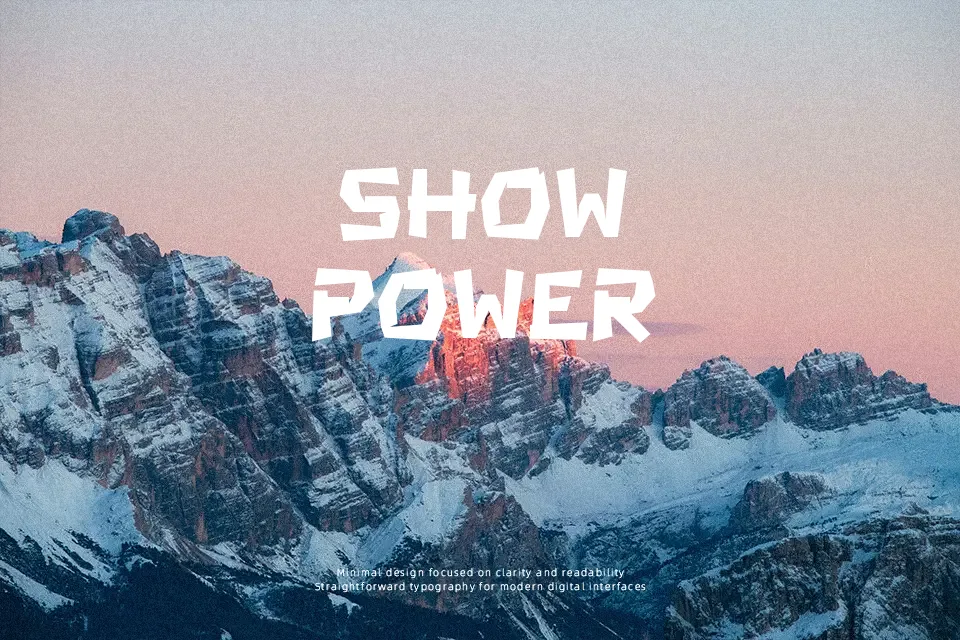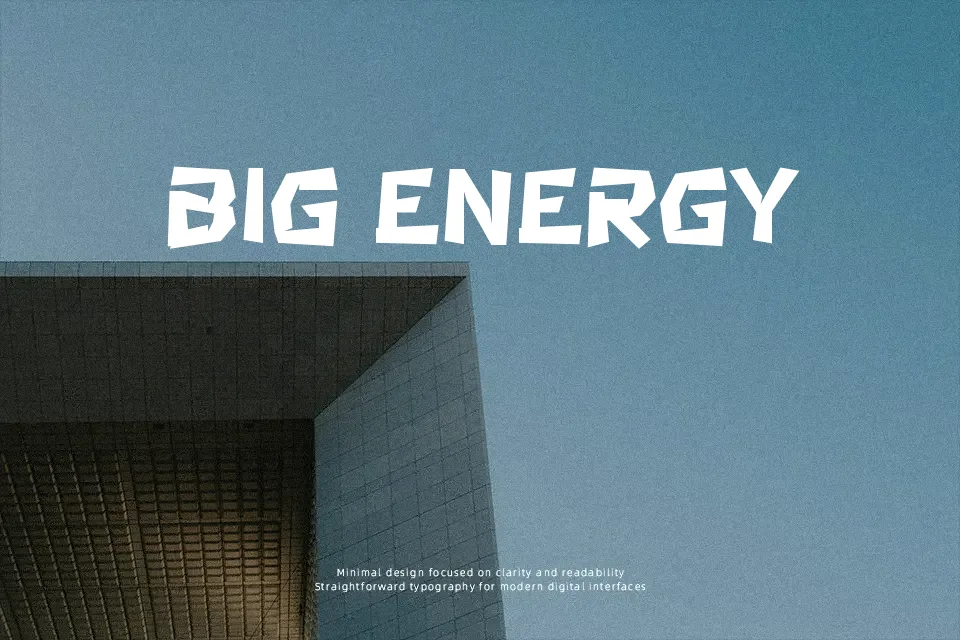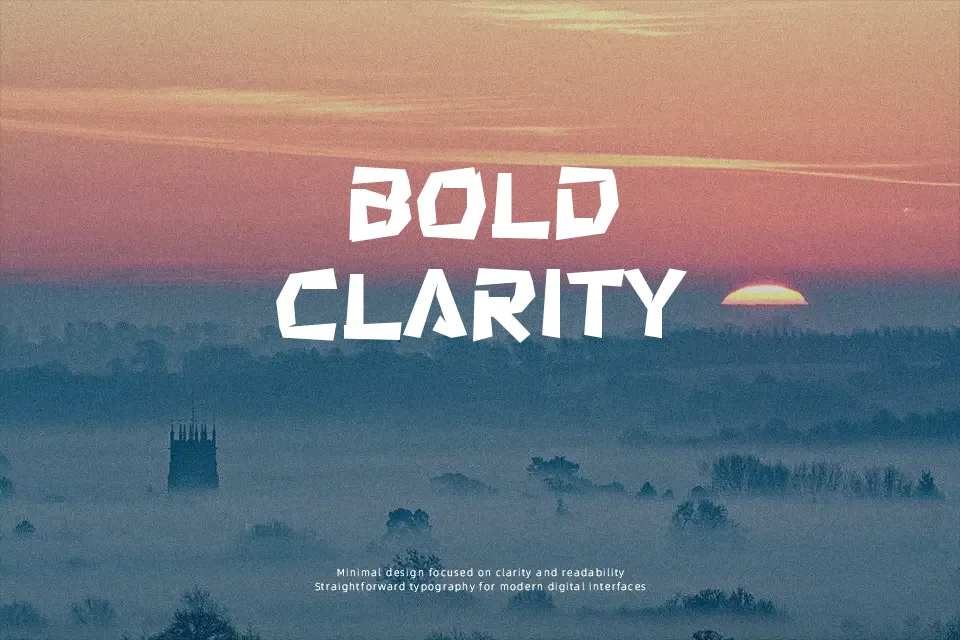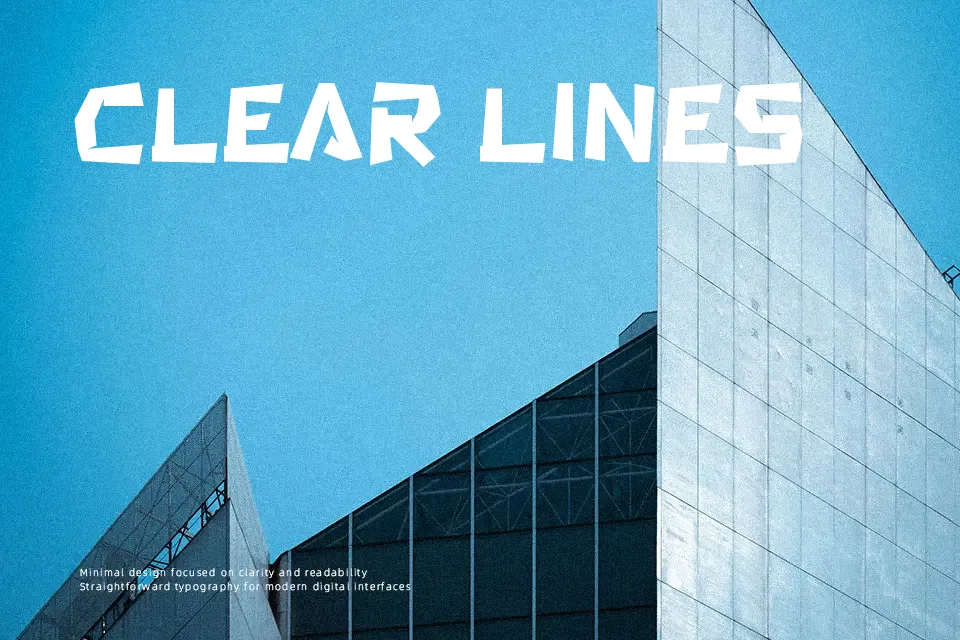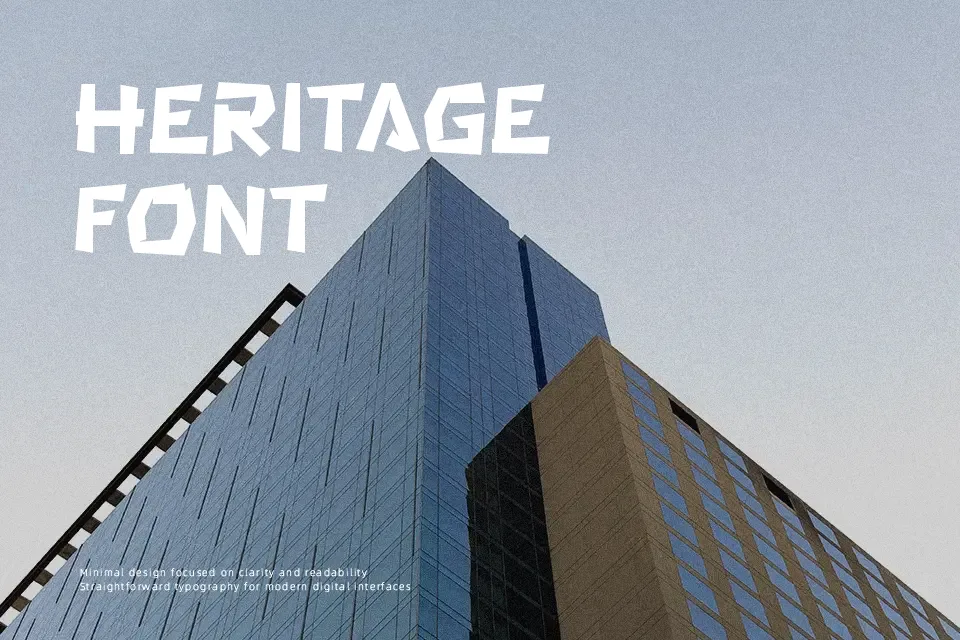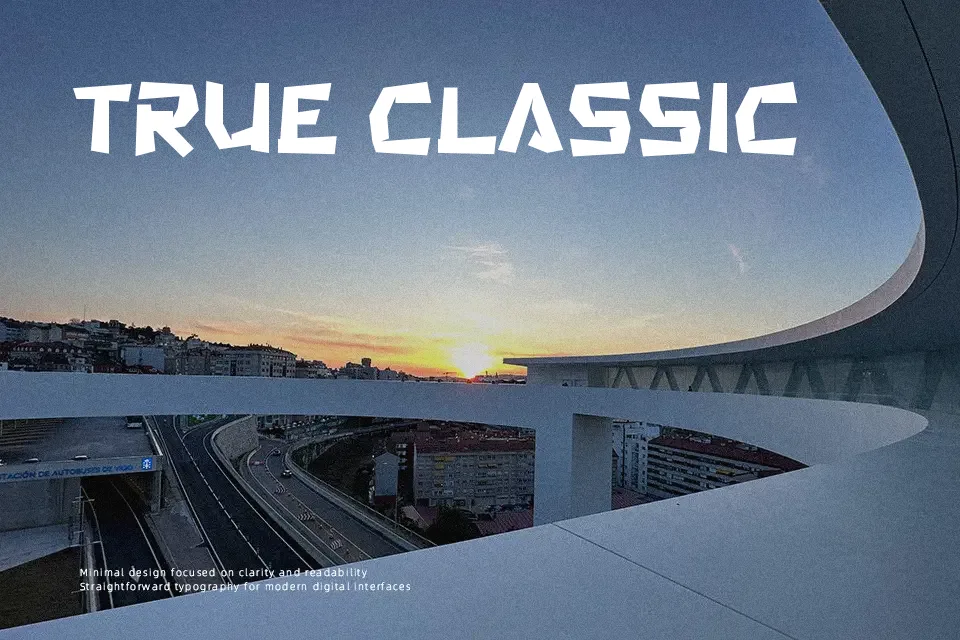
A Art Paper Font
Each letter in A Art Paper looks like it was snipped from construction paper — uneven edges, chunky strokes, and deliberate roughness give it a collage-like quality that feels genuinely crafted rather than digitally polished. The letterforms are bold and blocky with low stroke contrast, making them readable at display sizes while still radiating a casual, hands-on energy. It suits headline use on craft market flyers, children’s event banners, or scrapbook-style editorial spreads. That said, the same rough texture that gives it charm becomes a liability at small sizes — legibility degrades quickly below 24pt. It also lacks the versatility for any context demanding precision or authority, so typographers needing clean decorative headers may find the irregularity more distracting than charming.
Best For:- children’s book covers and editorial headers
– DIY craft fair or handmade market posters
– scrapbook-style social media content
– playful packaging for kids’ products
Not Ideal For:- small body text or captions
– corporate branding or professional reports
– formal invitations requiring refined letterforms
– UI design where legibility at small sizes is critical
Perfect for editorial, kids, and packaging, with a creative and cartoon style.